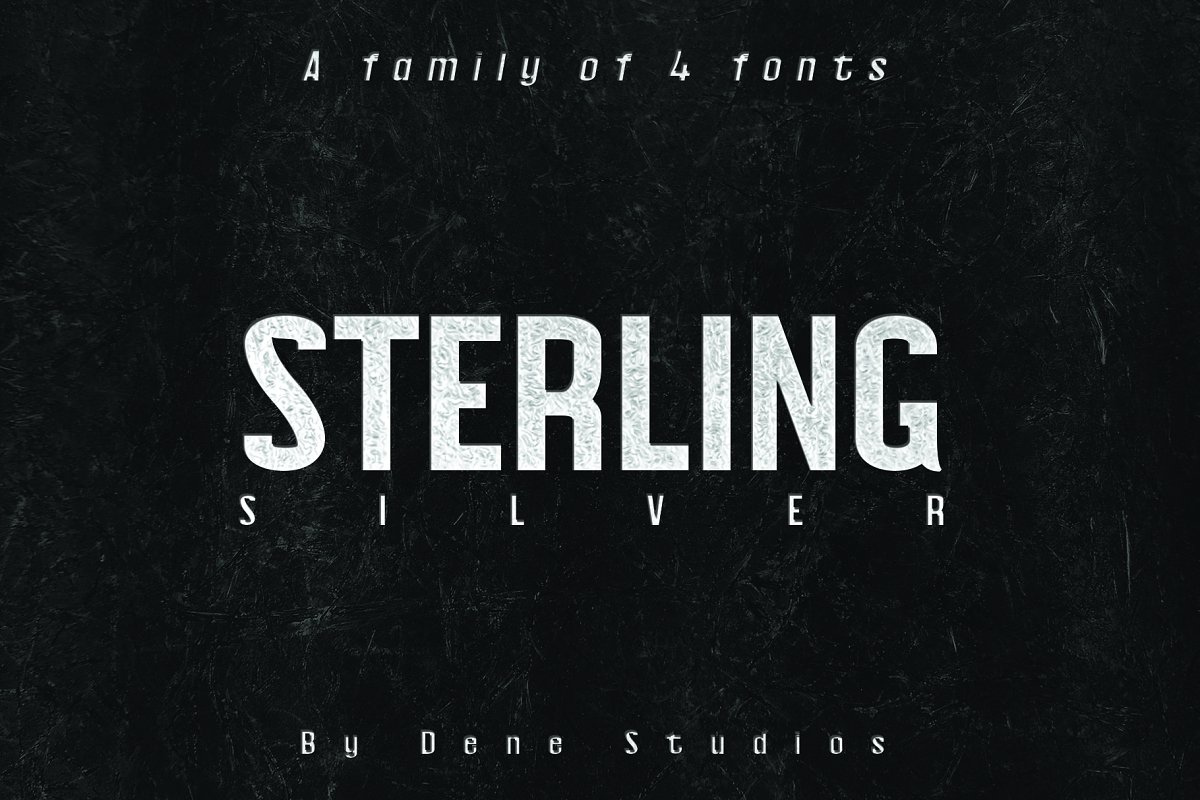
Sterling Font
Sterling Font is perfect for financial services branding, luxury banking, premium investment firms, high-end jewelry marketing, precious metals companies, elite financial advisors, upscale business consulting, sophisticated corporate communications, prestigious wealth management, and distinguished financial institutions.
What makes Sterling Font exciting is its precious value that embodies the refined excellence of premium financial services and luxury craftsmanship through meticulously crafted letterforms. This distinguished typeface combines monetary sophistication with timeless elegance, creating a personality that communicates trust, value, and genuine financial expertise. The font's sterling character and precious appeal make it perfect for financial institutions, luxury brands, and premium services seeking to convey stability, prosperity, and authentic financial excellence in competitive markets.
The Sterling Font family includes Regular, Bold, Light, Medium, Premium, Luxury, Condensed, and Precious variants. Each weight maintains the font's sterling character while providing comprehensive typographic flexibility for financial brand identity systems and luxury design applications across diverse premium service platforms.
Whether you're developing financial brand identities, creating luxury marketing materials, designing premium service presentations, or building sophisticated investment campaigns, Sterling Font delivers unmatched sterling appeal and financial sophistication. Its precious presence makes it perfect for banks, investment firms, luxury jewelry brands, and financial advisors seeking authentic premium representation.
The font's refined proportions and sterling details create a trustworthy reading experience that inspires confidence in financial decisions and luxury investments. Each letterform has been carefully crafted to convey stability, prosperity, and financial expertise that resonates with affluent audiences seeking premium financial services and luxury experiences.
This versatile typeface excels in financial environments, offering designers the sophistication needed for comprehensive premium brand communication strategies. The extensive character set includes sterling alternates, luxury ligatures, and financial symbols for premium market positioning and financial brand storytelling.
Embrace the power of precious design that celebrates financial sophistication and authentic premium value proposition.